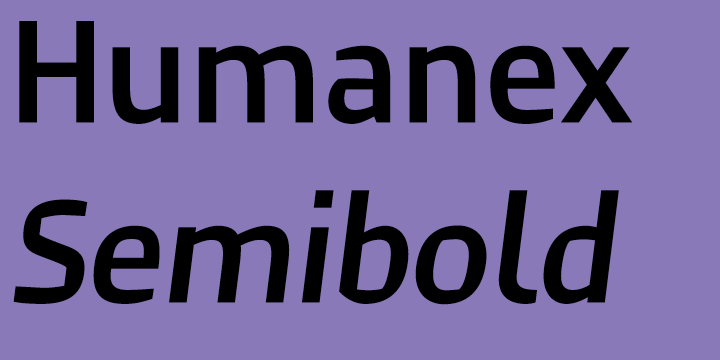
This contemporary typeface is an excellent choice for projects that demand a blend of modern clarity, approachable warmth, and a subtly humanist touch. Imagine it forming the friendly yet professional backbone of non-profit organization branding, providing inviting readability for educational materials, or adding a soft, sophisticated feel to lifestyle blogs. Humanex Font is also perfectly suited for designing empathetic user interfaces, crafting precise yet gentle logos for wellness brands, or creating compelling headlines for community-focused initiatives. Its balanced proportions and often open, friendly letterforms make it an ideal option for any design seeking to convey trustworthiness, innovation, and a universally appealing, user-centric sensibility, such as health and beauty product packaging, public service announcements, or welcoming corporate communications.
What makes Humanex Font so exciting? It strikes a harmonious balance between geometric precision and the organic warmth of human handwriting, resulting in a highly versatile and appealing design. The letterforms are often characterized by open counters, slightly varied stroke widths, and a harmonious rhythm that ensures comfortable reading across various sizes and mediums. This font doesn’t just present information; it connects with the reader, imbued with a sense of approachability and thoughtful design. It's engineered to perform exceptionally well in both display settings and more extensive body text, making it a true workhorse for designers who prioritize functionality and elegant restraint with a human touch. The inherent clarity and adaptable nature of its character shapes make it particularly effective for brands that champion empathy, innovation, and a universally appealing, modern identity.
The Humanex Font family typically offers a comprehensive range of weights and styles, providing extensive flexibility for designers to build sophisticated and consistent typographic systems. You can expect to find a broad spectrum of options, including Thin, Light, Regular, Medium, Bold, and often an Extra Bold or Black weight, along with corresponding italic versions. Each weight is meticulously designed to maintain the font's core characteristics while offering distinct visual impacts, allowing for a precise and nuanced typographic hierarchy. These variations enable designers to create well-structured and highly functional text layouts, effectively differentiating between headlines, subheadings, and body text with elegance and clarity. The extensive family ensures that Humanex Font can be the singular typeface for an entire brand system, guaranteeing visual consistency and a polished, professional appearance across all mediums.
Whether you're developing an educational platform, building a new brand identity for a purpose-driven enterprise, or simply need a typeface that speaks with quiet confidence and modern elegance, Humanex Font Free Download is an outstanding choice. Its refined design and broad versatility will ensure your message is always delivered with utmost clarity and sophisticated purpose.